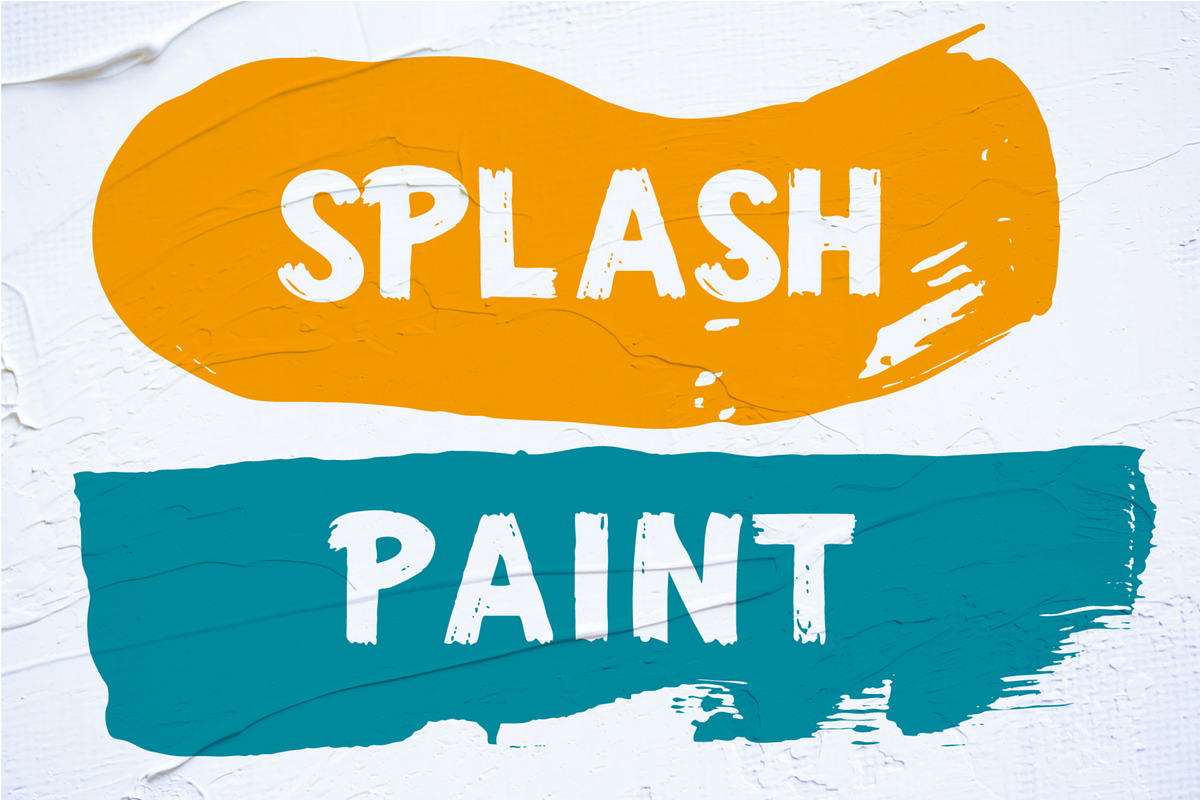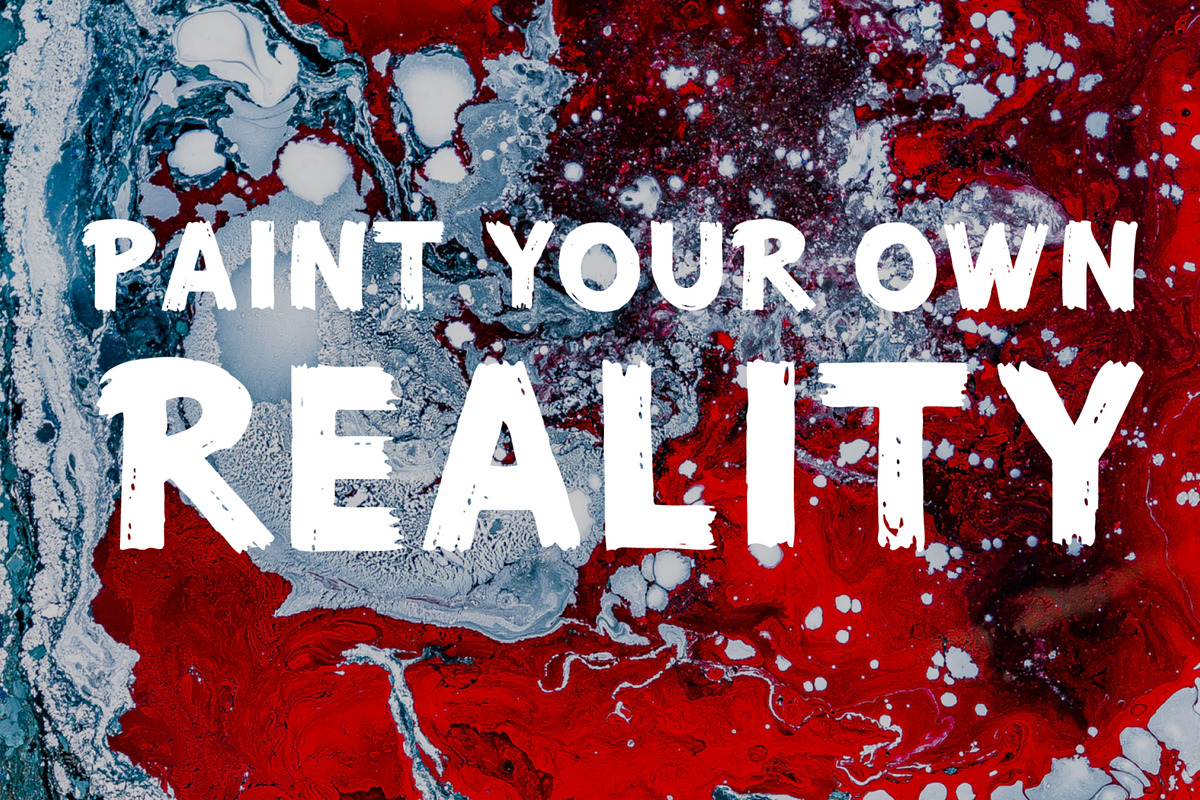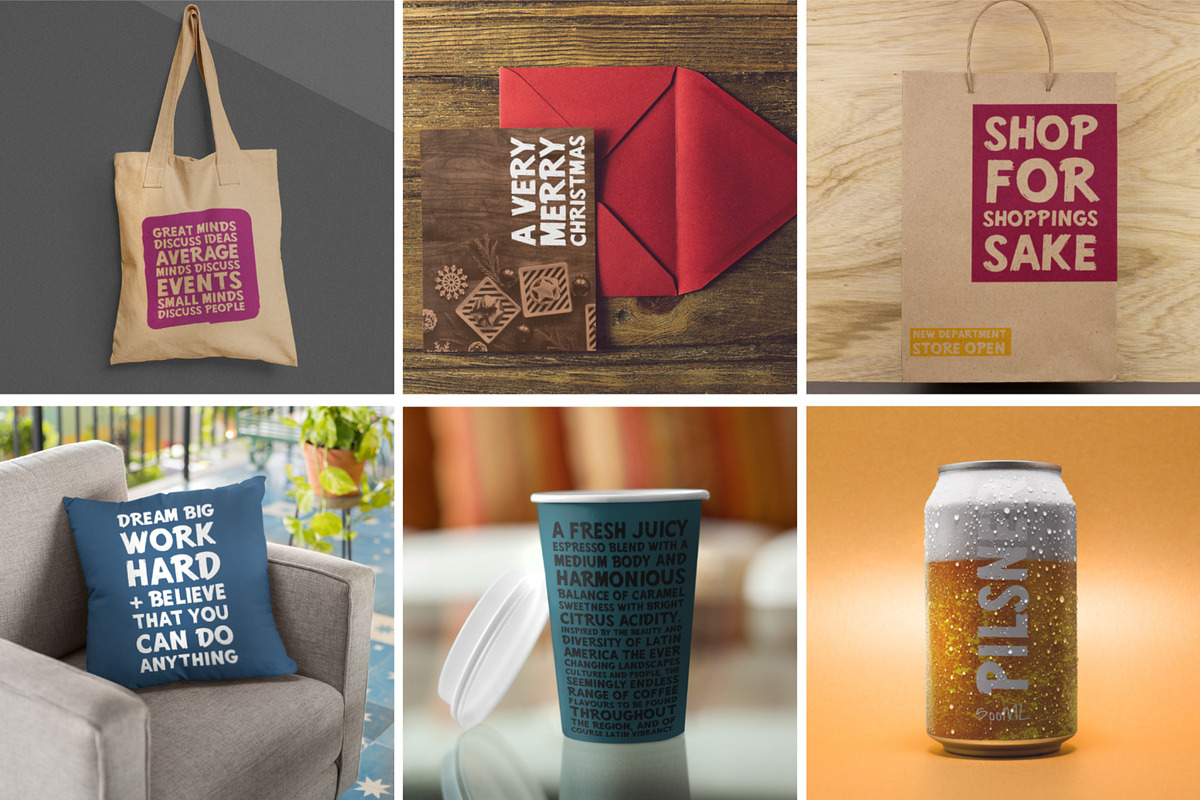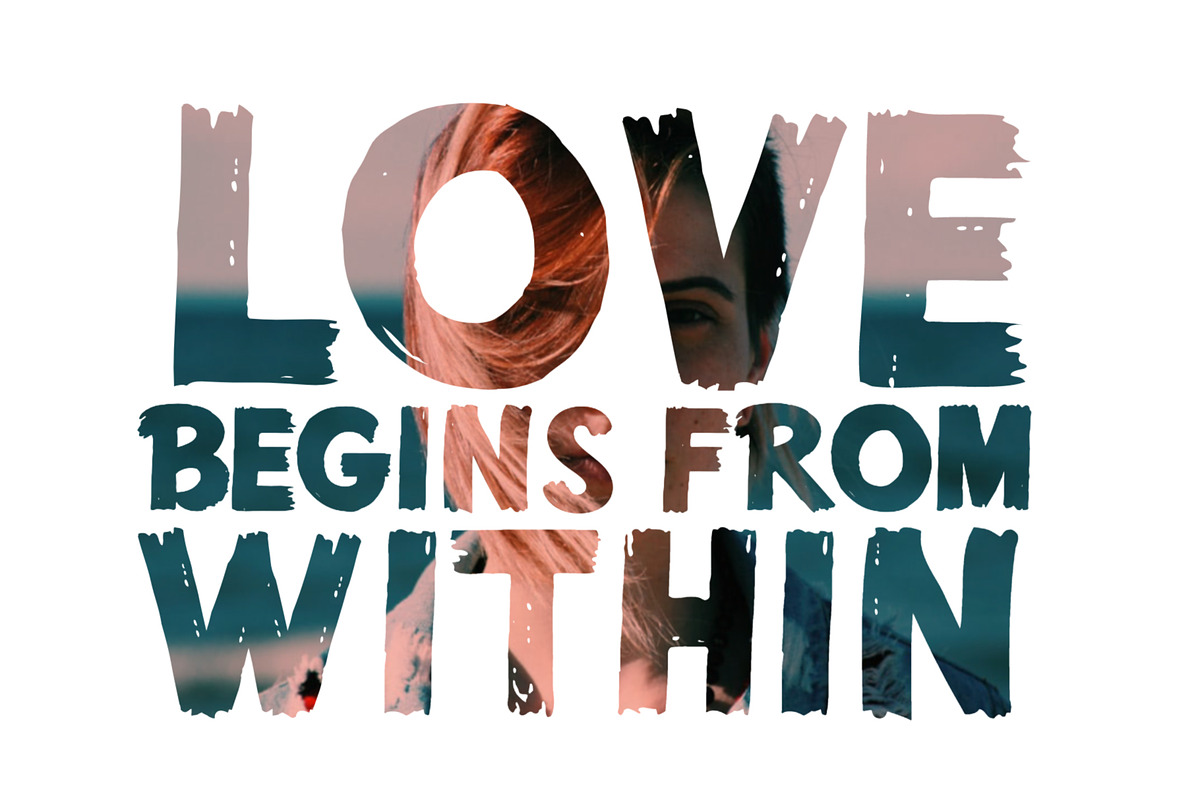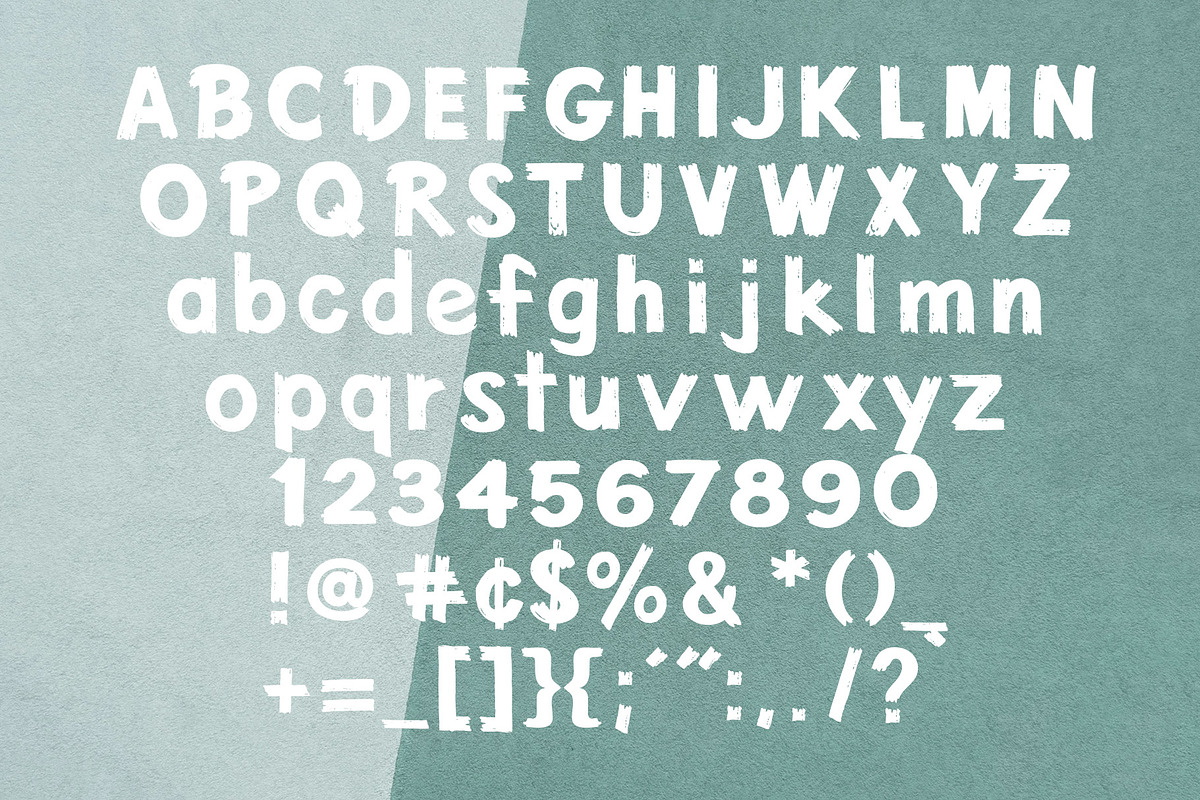
Viscid | Brush Font
Viscid | Brush Font by Craft Graphic Type is a font selected for branding, posters, packaging, typography.
Why Viscid | Brush Font is worth a look
Viscid | Brush Font by Craft Graphic Type fits naturally into Branding, posters, packaging, typography.